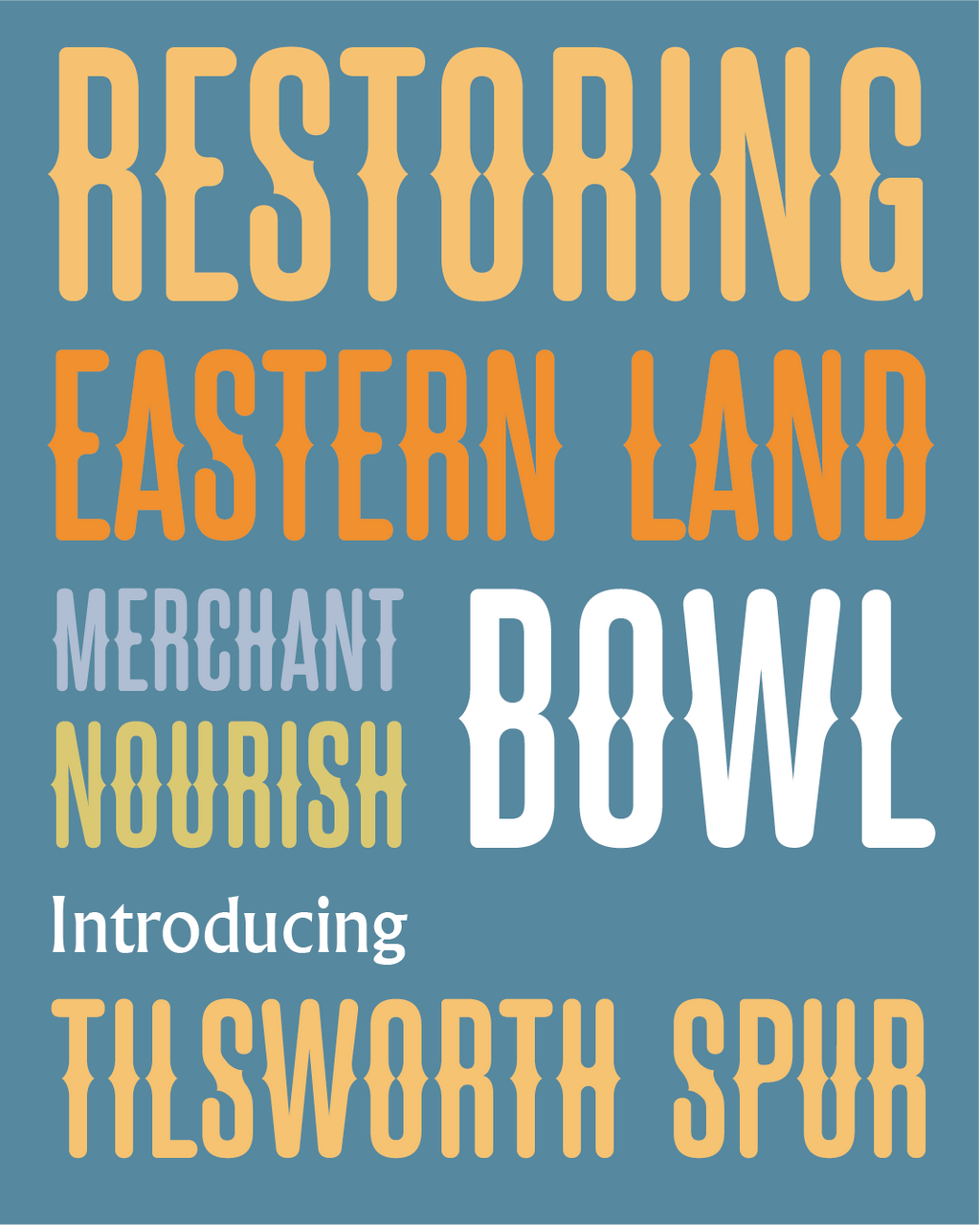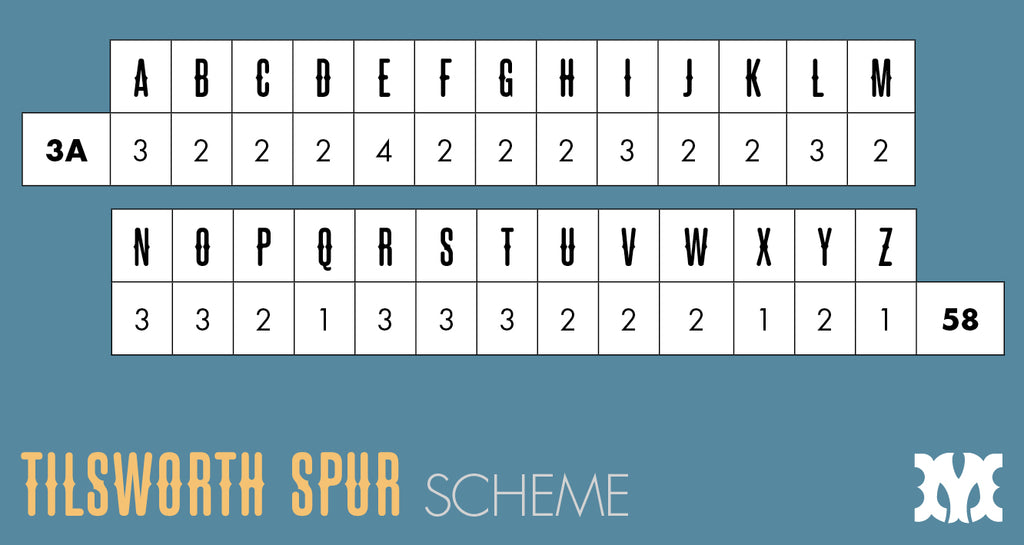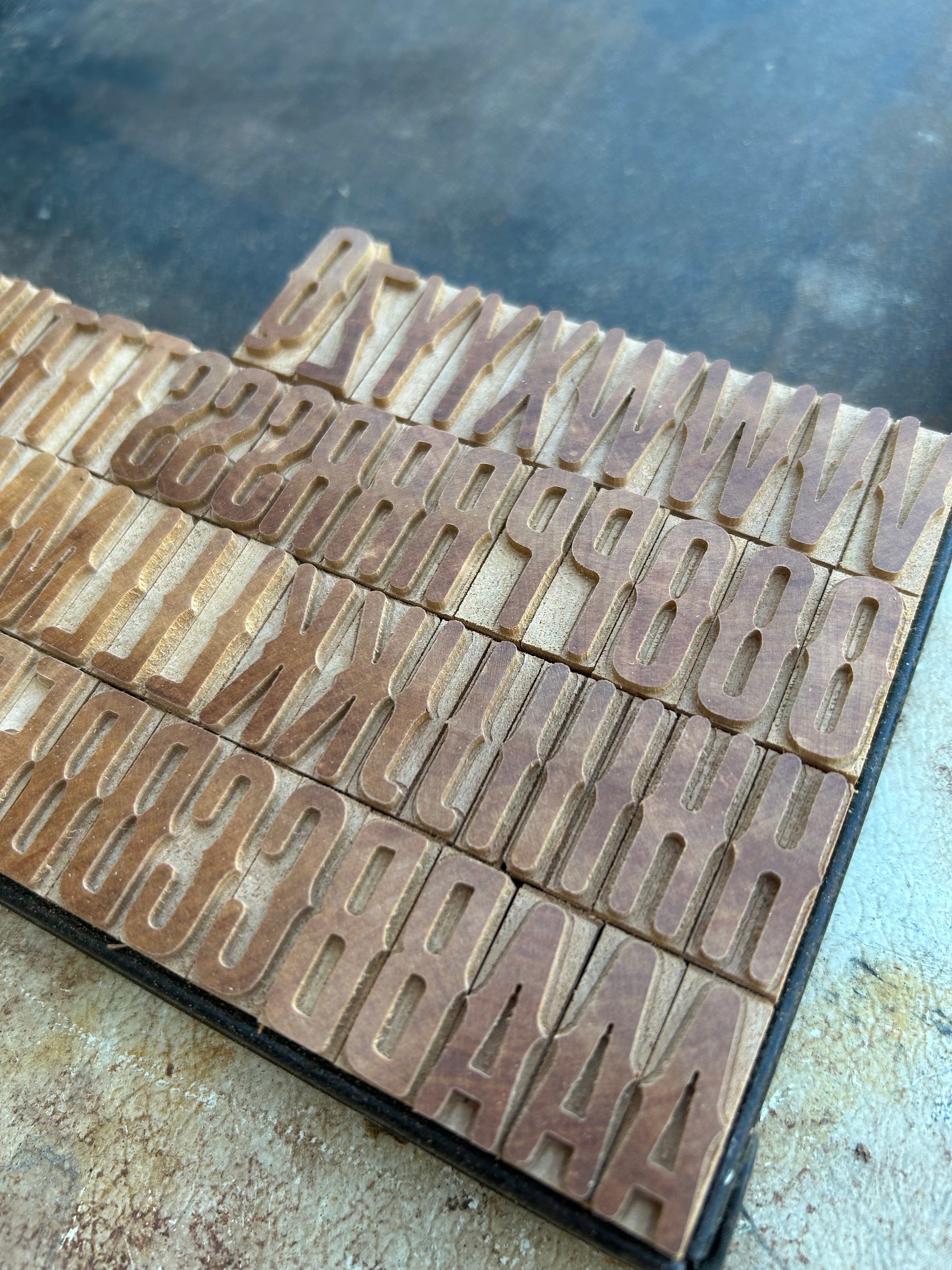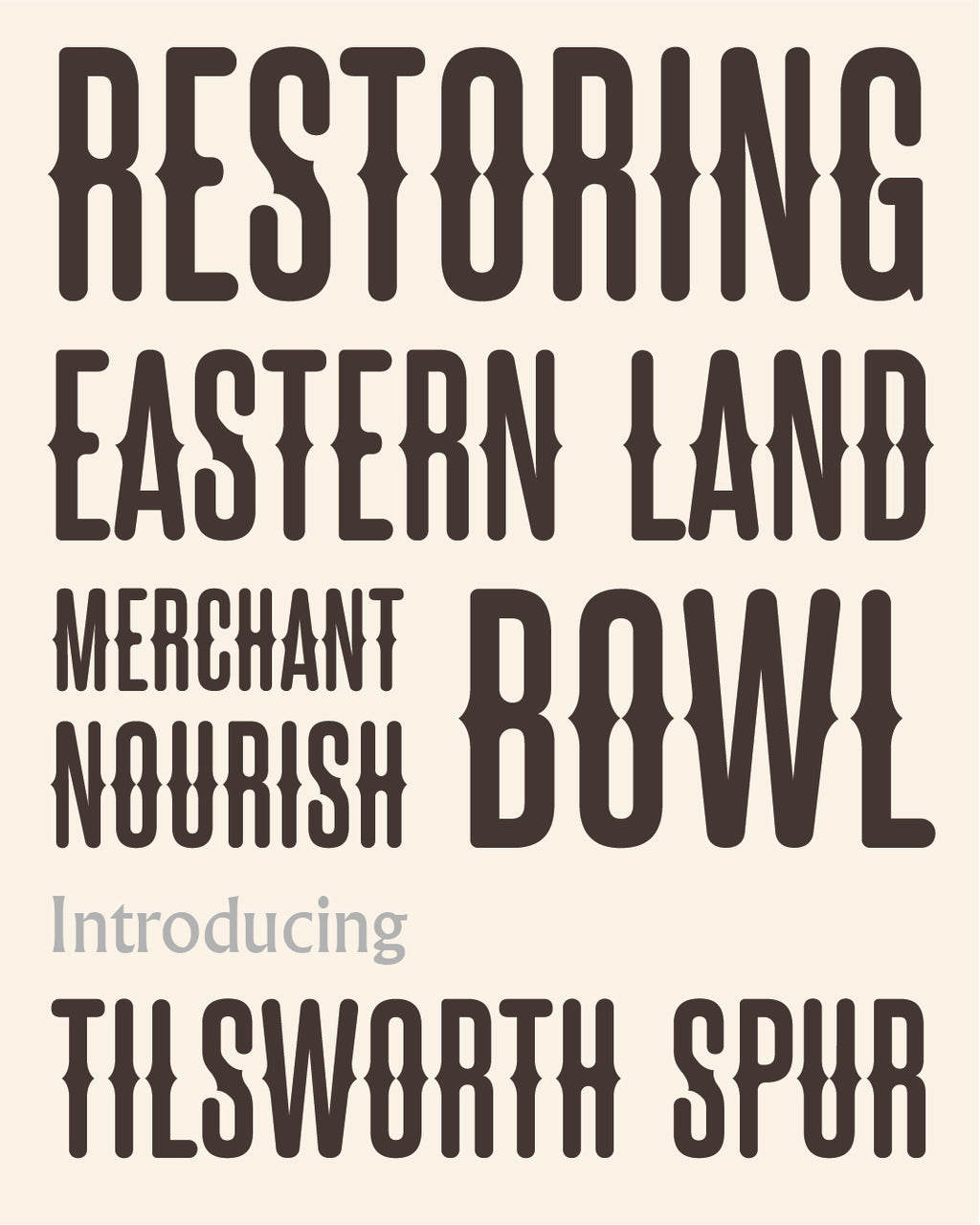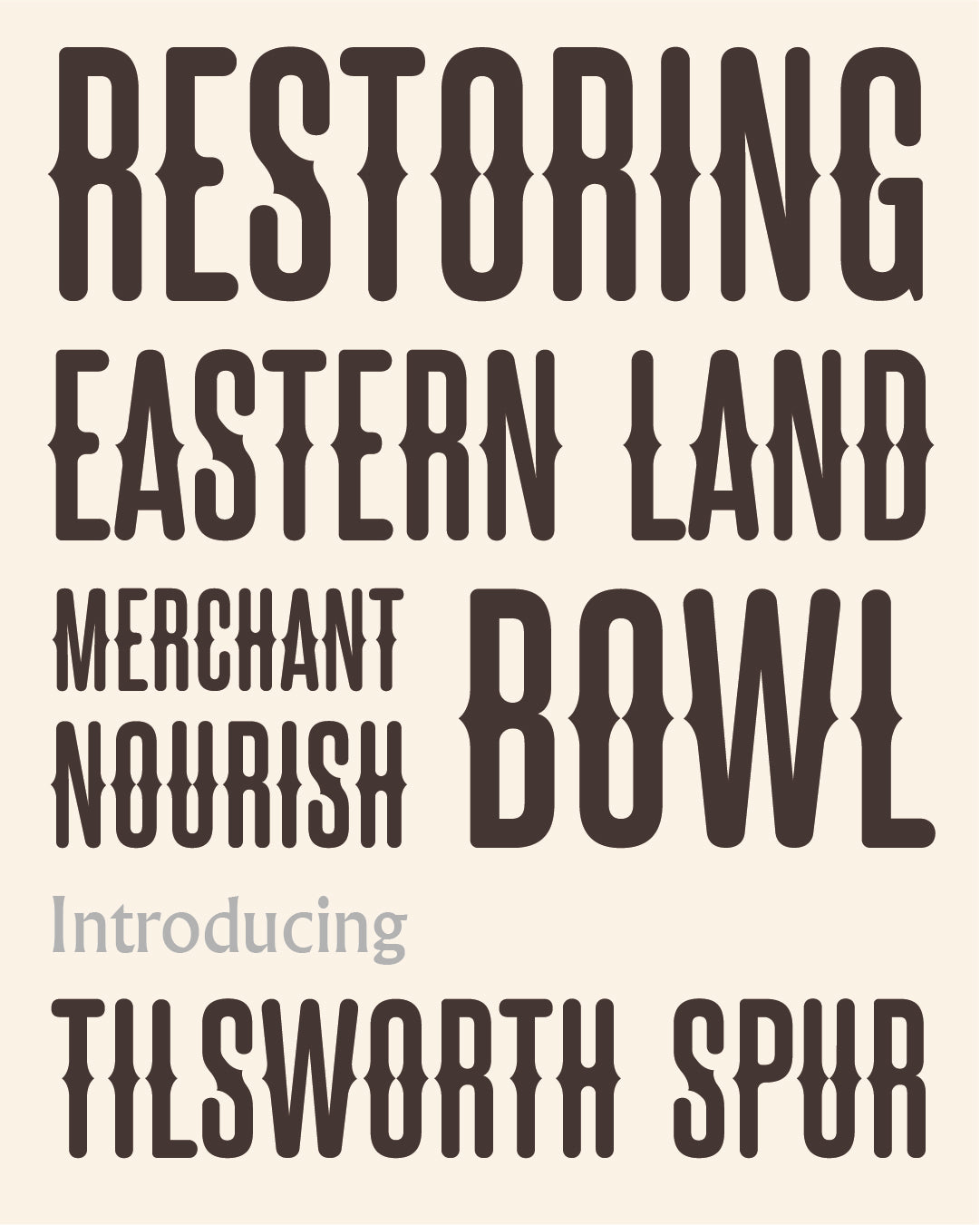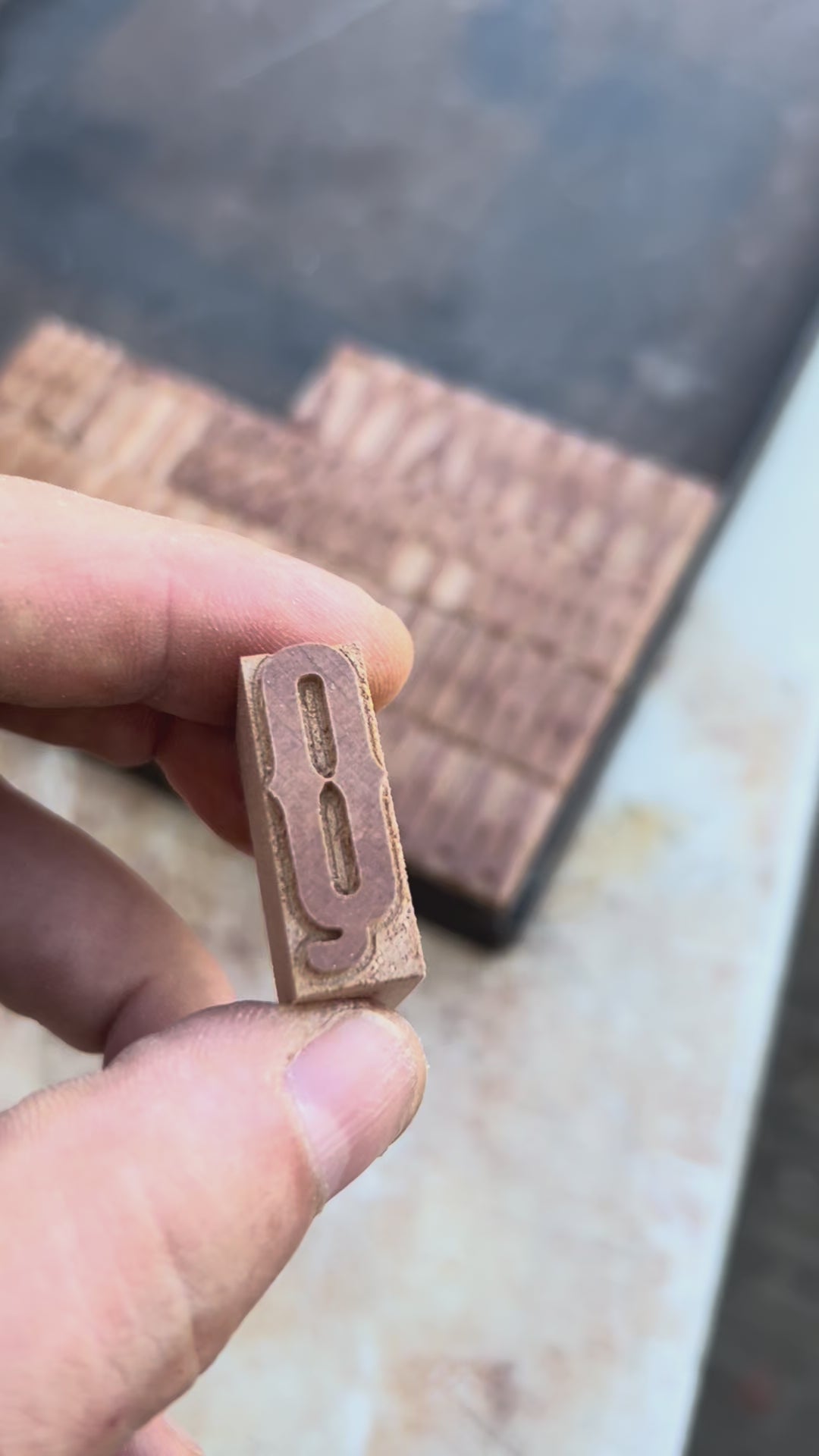
'Tilsworth Spur' letterpress woodtype typeface
Introducing 'Tilsworth Spur' - based on 'Tilsworth' and designed by Mark McKellier.
10 line (42.3mm) and 6 line (25.4mm) versions cut from end grain English hardwood using a combination of modern CNC technology and traditional hand woodworking tools (including an original printers saw), made to English type-high (0.918in or 23.3mm) within plus or minus 0.1mm tolerance, sealed with shellac and hand finished with a traditional polished printing surface.
Available as a 3A capitals (58 blocks) schemes. Please see scheme details on the right.
End grain English hardwood, clear shellac
Each block varies in width however average size is 25 x 23.3 x 42.3mm for the 10 line.